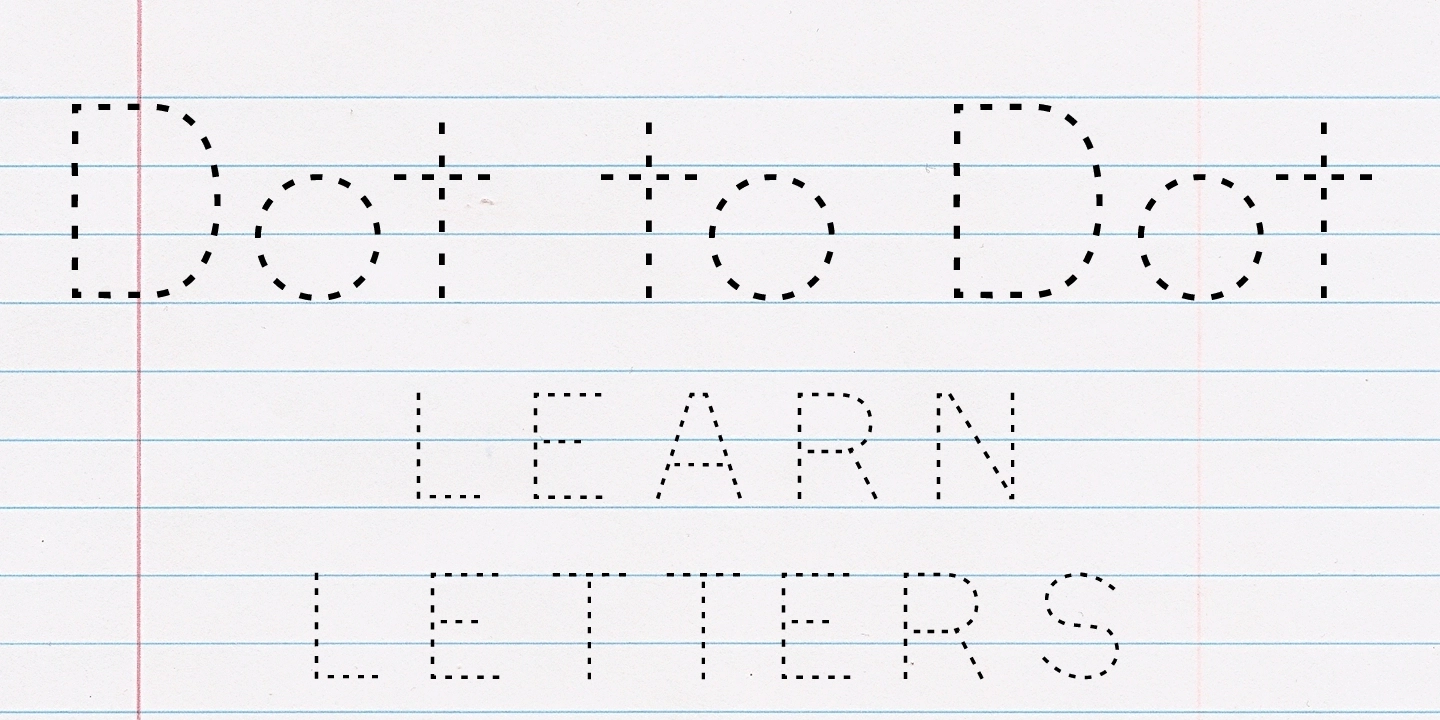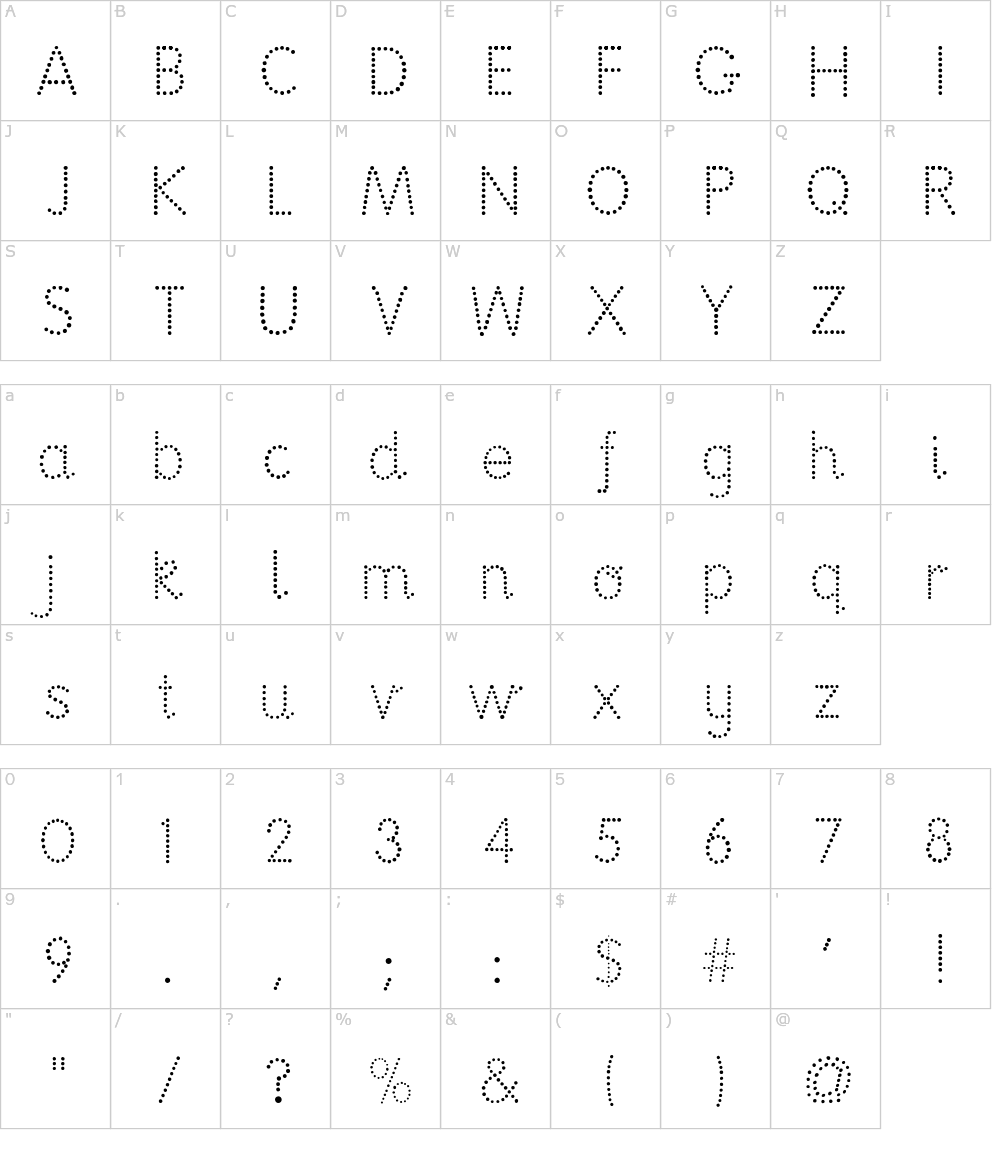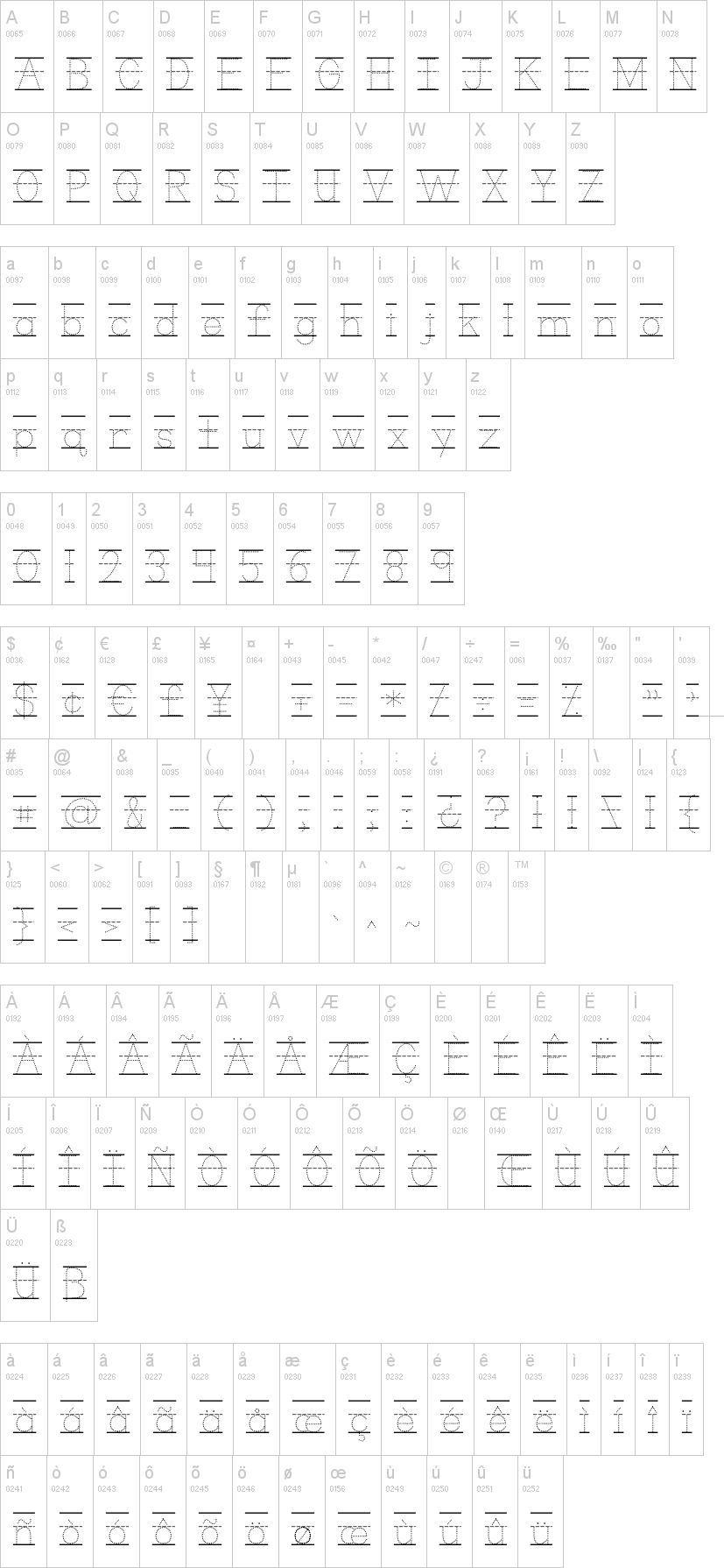
Finding the right tools for tracing can enhance your creative projects significantly. One such tool that stands out is the free dotted font, which makes tracing letters and shapes a breeze for both kids and adults.
A free dotted font for tracing is perfect for educational purposes. It allows children to practice their handwriting skills while enjoying the process. This interactive approach keeps them engaged and motivated to learn.
In addition to educational uses, a dotted font can enhance your creative designs. You can incorporate it into invitations, greeting cards, or even art projects, adding a unique touch that stands out.
Overall, utilizing a free dotted font for tracing can make learning and creativity enjoyable. With so many options available online, finding the perfect font for your needs is just a few clicks away.